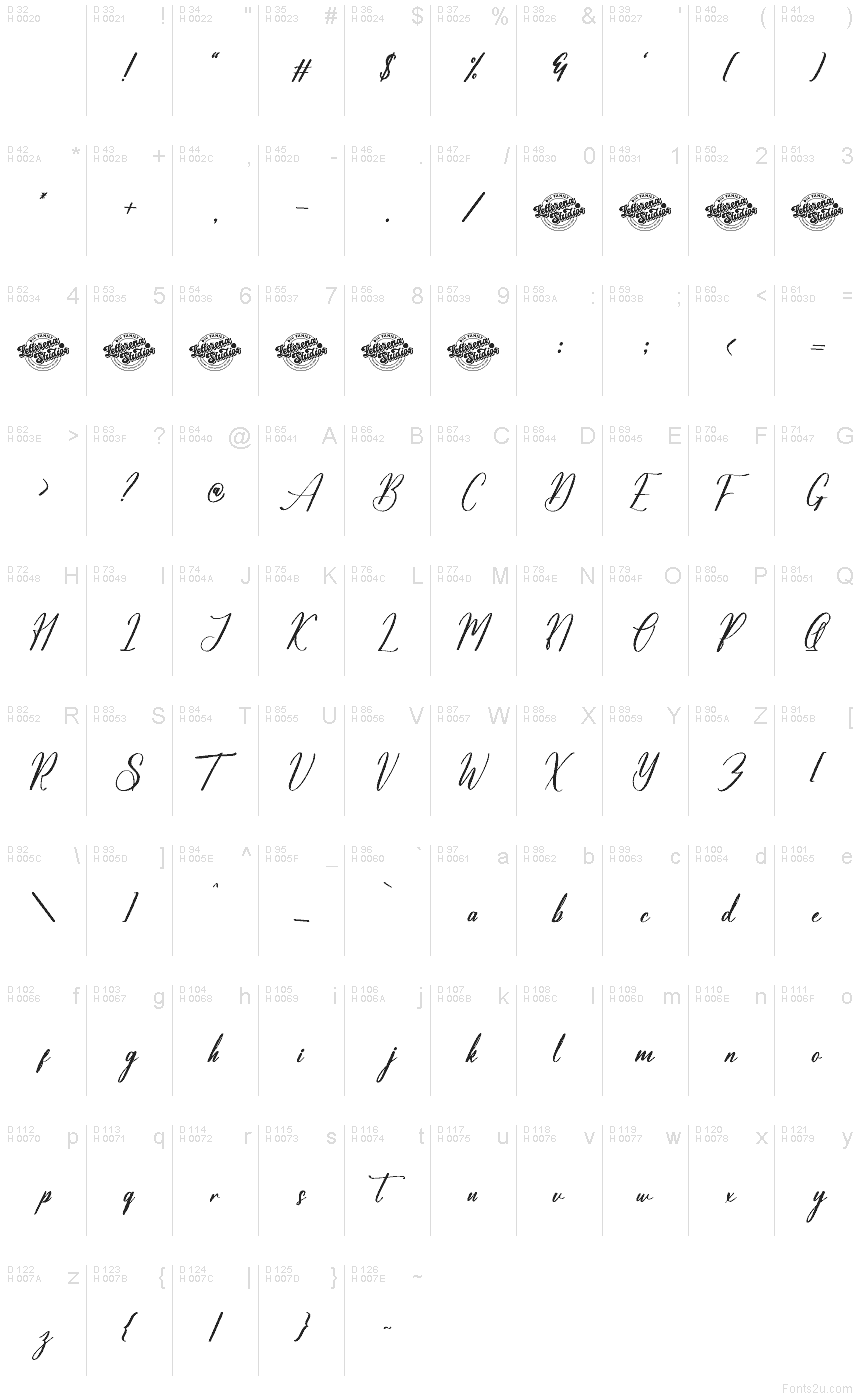
Salyatori Quinbella font by Letterena Studios is a free calligraphy font. Its airy loops, slim strokes, and lightly inky texture feel hand-penned—elegant without turning fussy. The rhythm glides from letter to letter, giving names and short phrases a graceful, confident sweep that reads clearly even at modest sizes.
Using Salyatori Quinbella, your work shines on wedding invitations, boutique logos, beauty packaging, menus, signage, social media quotes, and thank‑you cards. This free font carries a soft, romantic tone with just enough bite to stand out on creamy paper or bright screens. Pair it with a clean sans to anchor body copy, and let the script handle headlines and signatures.